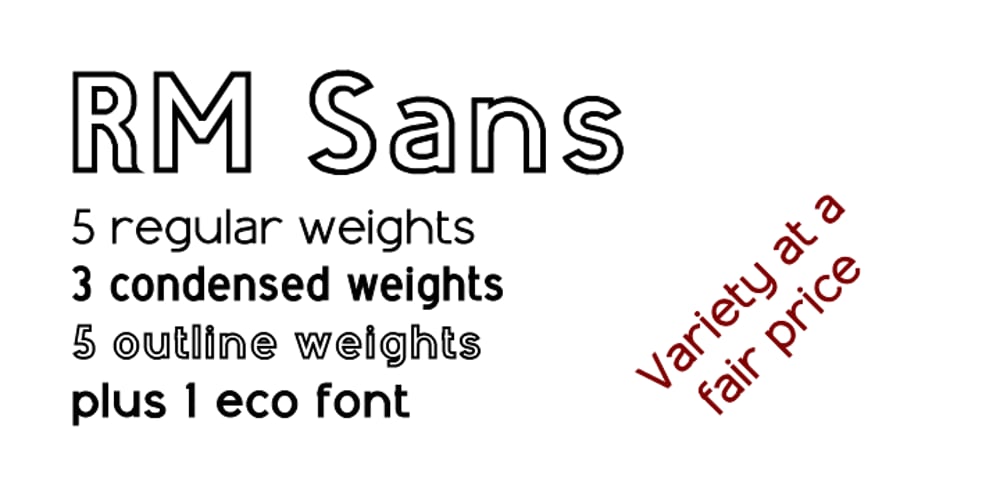
RM Sans Font Family was designed by Ray Meadows and published by Ray Meadows. RM Sans contains 14 styles and family package options. RM Sans has been designed to offer an useful but inexpensive family of 5 regular weights; 3 condensed weights; 5 outline weights and an ‘eco’ alternative. Due to the modular nature of this design there may be a slight lack of smoothness to the curves at very large point sizes (around 100 pt and above).